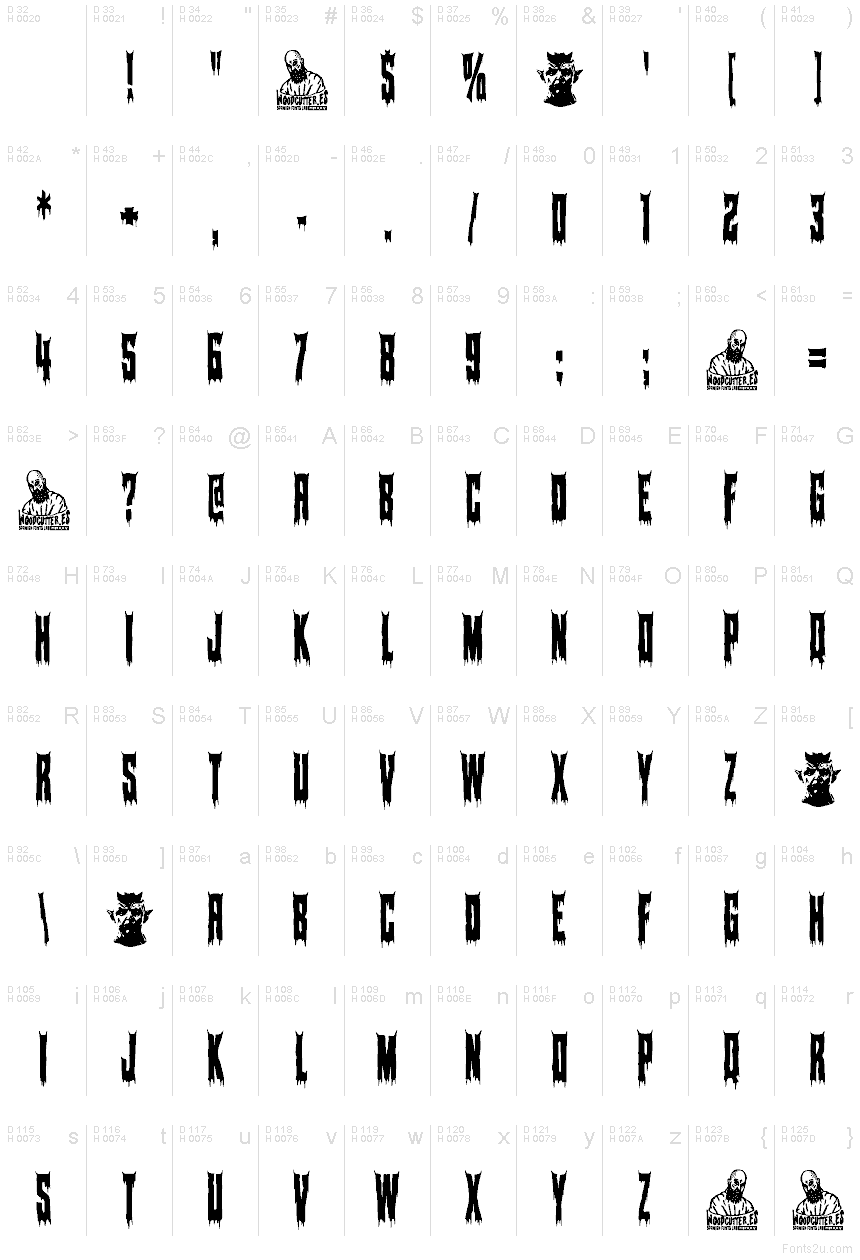
Diablo Party
Diablo Party font by Woodcutter is a free modern gothic display font. Tall, blade‑like letters rise to spiky peaks, then melt into inky drips that feel part candlewax, part fresh splatter. The texture is bold and gritty, delivering instant “night-of” energy without extra effects-just set it big and let those ragged bottoms do the mood-setting.
Using Diablo Party, titles snap into place for Halloween posters, haunted house signage, horror trailers, metal band merch, thriller book covers, and game splash screens. Its compressed, vertical thrust saves space while keeping the scream factor high. Give lines a touch of extra spacing so the drips breathe, and pair it with a clean, condensed sans for dates and details to keep the chaos readable.